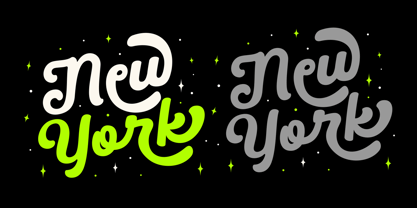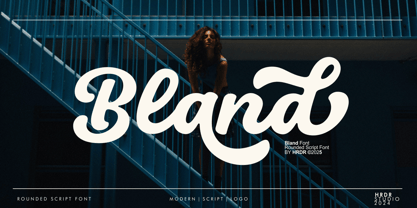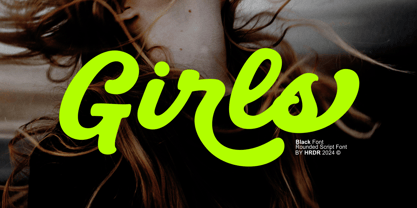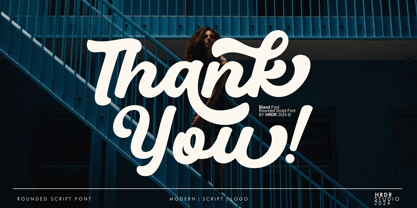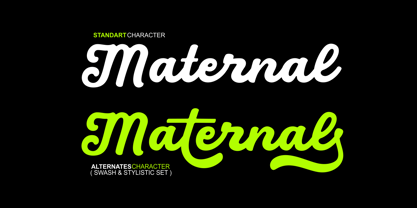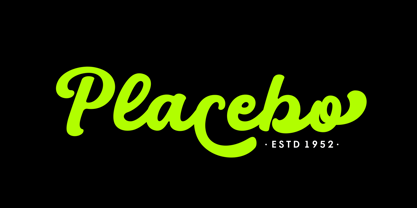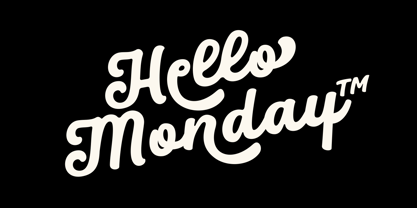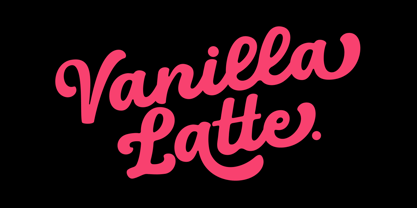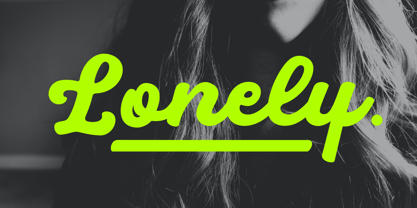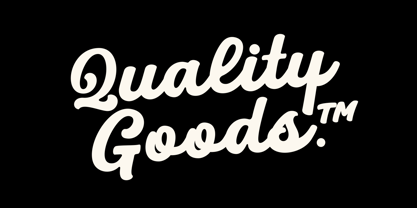
Bland
by HRDR
The Bland Font Family was designed by Dede Mulyadi and published by HRDR. Bland contains 1 styles. More about this family
Meets Bland, This bold and curvy script font evokes a sense of retro and elegant charm. Perfect for eye-catching headlines, artistic logos, creative branding, and playful posters, its handwritten style adds a personal and expressive touch to any design project. Ideal for designers looking to create a fun and unique impression.
Designers: Dede Mulyadi
Foundry: HRDR